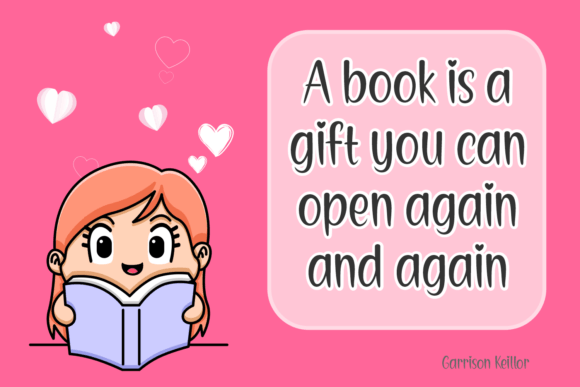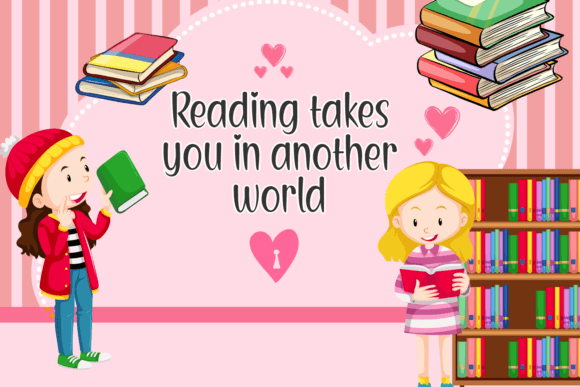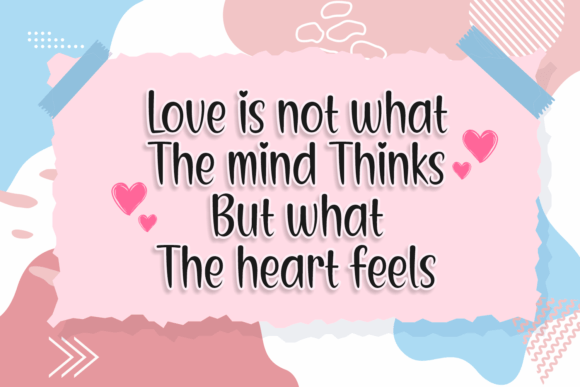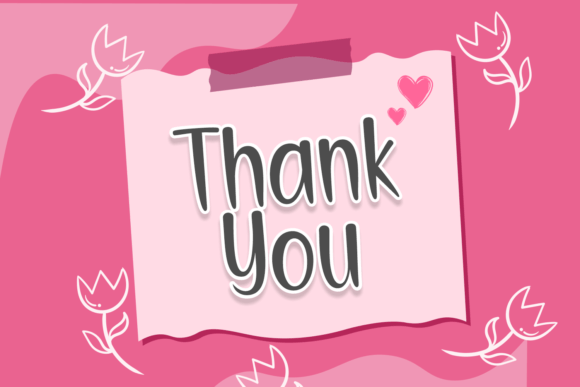
Discover the Timeless Charm of Diary Storage Font
As a designer, there’s nothing quite like the thrill of brainstorming a new project, surrounded by scraps of paper, pencils, and a blank canvas waiting to be filled with creativity. It’s in these moments that we discover the perfect font to bring our vision to life – and for many, that font is the lovely Diary Storage.
With its sleek and elegant strokes, Diary Storage Font is the perfect blend of modern charm and timeless sophistication. Whether you’re designing a wedding invitation, social media graphic, or anything in between, this versatile font is sure to elevate your project to the next level. Its contemporary flair makes it a valuable addition to any designer’s toolkit, offering endless possibilities for creative expression.
Diary Storage Font Review
When I first saw the Diary Storage Font, I thought it was a nice addition to any digital journal or diary application. Here are some of the things that work well: ✨
- Unique and modern design that captures the essence of a diary or journal.
- Wide range of font styles and sizes, making it easy to customize.
- Support for various languages, including right-to-left languages.
However, there are also some limitations to consider: ⚠️
- Some users may find the font too large or too small, depending on the size of the text.
- Lack of bold and italic font styles.
Overall, I think the Diary Storage Font is a solid choice for digital journal or diary applications. While it has some limitations, its unique design and wide range of font styles make it a great option for those looking for a modern and customizable font. However, users should be aware of the potential compatibility issues and font customization limitations.
Diary Storage Font is commonly used in:
- Vintage-inspired designs
- Distressed text effects
- Scrapbooking and journaling